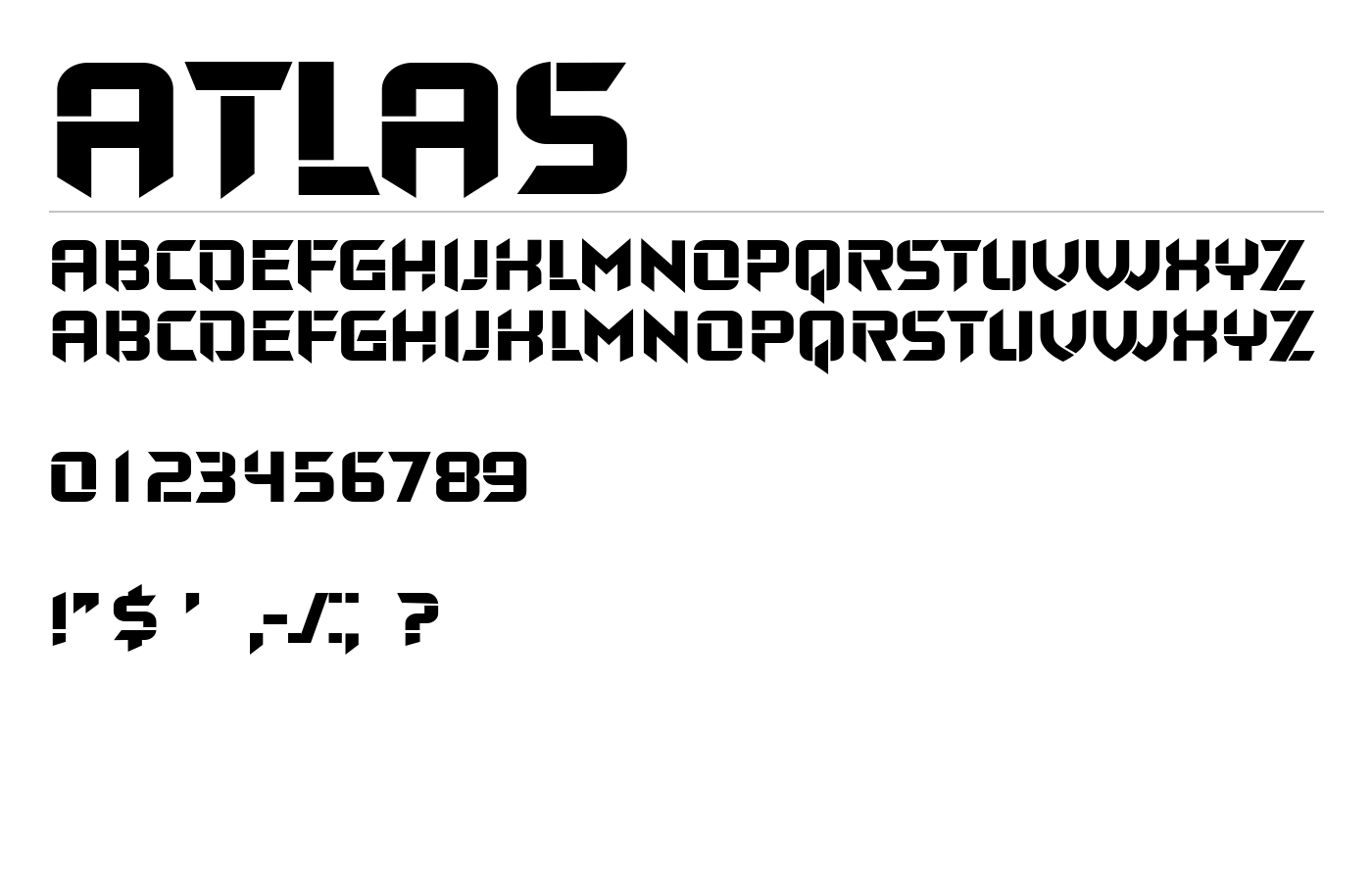
Atlas Font is a bold, geometric sans serif with a futuristic and tech-inspired style. Its strong, angular shapes and high contrast between solid black strokes and sharp edges give it a striking, modern appearance perfect for logos, posters, and branding that demand attention and convey strength. This font works best in display settings where its unique, edgy personality can shine without sacrificing readability.
Atlas Font
About Atlas Font
| Font family | Atlas Font |